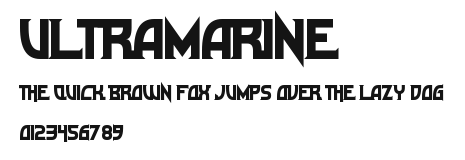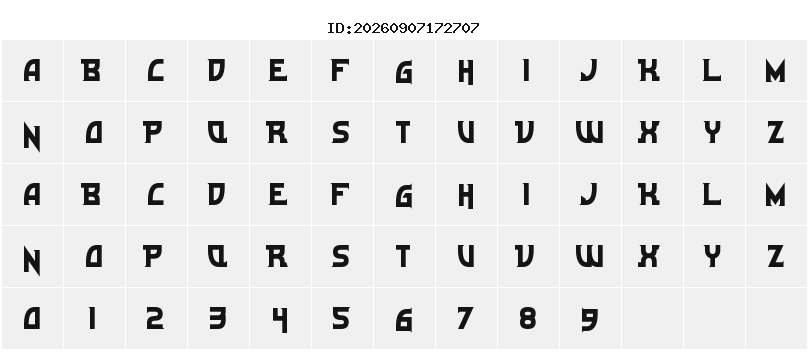
• Font Name: Ultramarine
• Font ID: Ultramarine:Version 1.00
• Full Font Name: Ultramarine
• Version: Version 1.00 June 4, 2014, initial release
• PostScript Name: Ultramarine
• Character Count: 242
About Ultramarine.otf
Ultramarine.otf is a modern, elegant sans-serif font designed for ultimate readability and visual harmony. Perfect for branding, headlines, web design, and print materials.